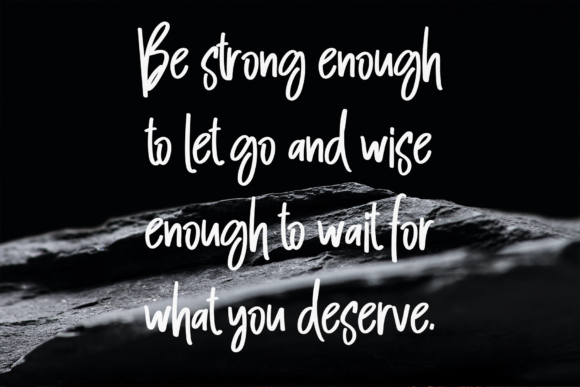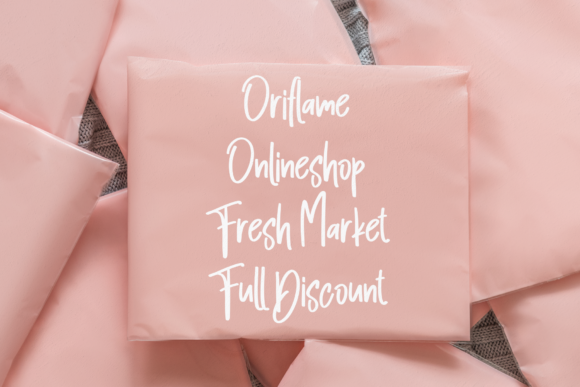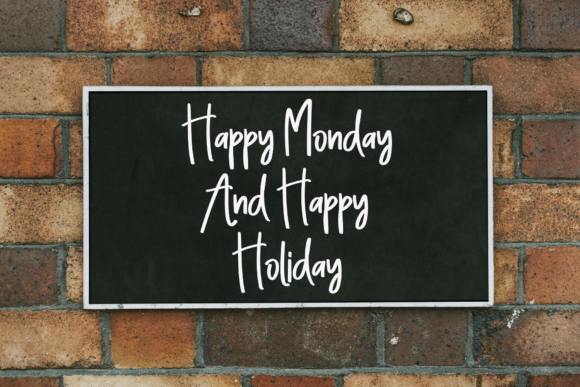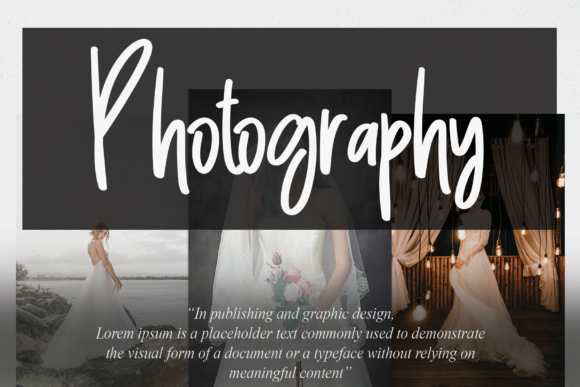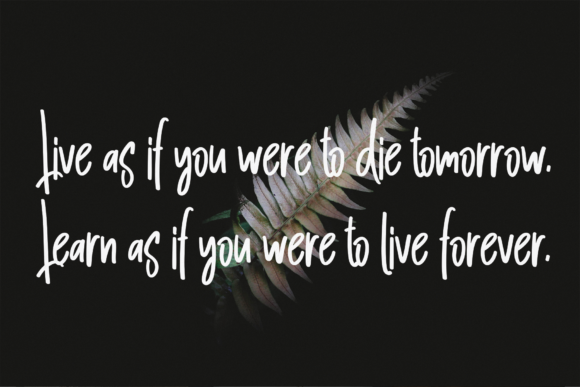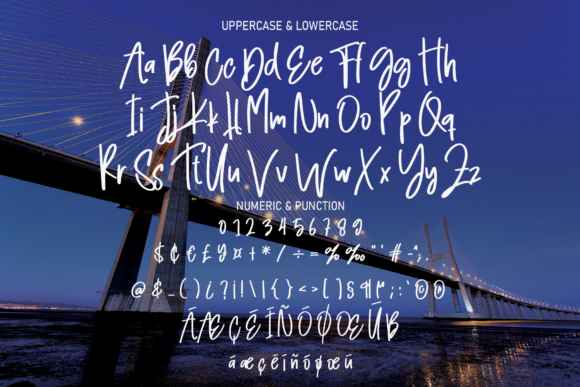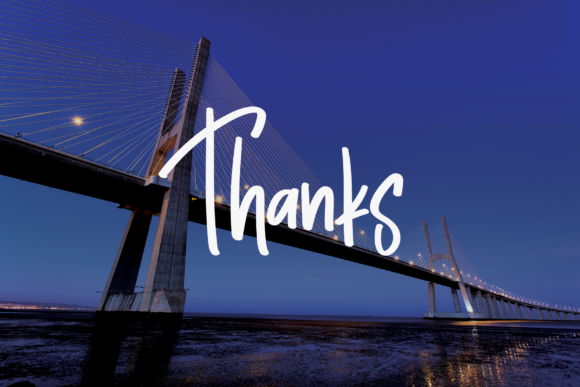
Brigeslow Font
About Brigeslow Font
“Brigeslow” is a captivating and delicate handwritten font that has been meticulously designed to ensure exceptional outcomes. With its carefully crafted details, this font exudes a sense of elegance and refinement that will effortlessly enhance your design projects.
The font’s gentle and graceful strokes create an aura of sophistication, making it a perfect choice for a wide array of creative endeavors. Its subtle yet impactful presence adds a touch of class to any design, whether it’s for personal or professional use.
“Brigeslow” is characterized by its understated beauty and careful attention to detail. Each letter has been thoughtfully crafted to maintain a harmonious flow, contributing to the font’s overall aesthetic appeal. The font’s delicate curves and clean lines ensure that it remains versatile and adaptable to various design contexts.
Whether you’re working on wedding invitations, greeting cards, logos, branding materials, or any other project that requires a refined touch, “Brigeslow” has the ability to elevate the visual appeal of your work. Its innate elegance lends itself well to both formal and informal designs, making it a versatile addition to your font collection.
In addition to its aesthetic appeal, “Brigeslow” also offers practicality through its PUA encoding. This feature enables you to easily access all of the font’s glyphs and swashes, giving you the freedom to experiment with different letter combinations and decorative elements. This customization option ensures that your designs can be tailored to suit your specific creative vision.
In summary, “Brigeslow” is a sweet and subtle handwritten font that embodies elegance and class. Its delicate strokes, refined details, and versatile nature make it an ideal choice for a wide range of design projects. Whether you’re aiming for a timeless and sophisticated look or a touch of understated charm, “Brigeslow” has the potential to transform your creative concepts into visually stunning realities.